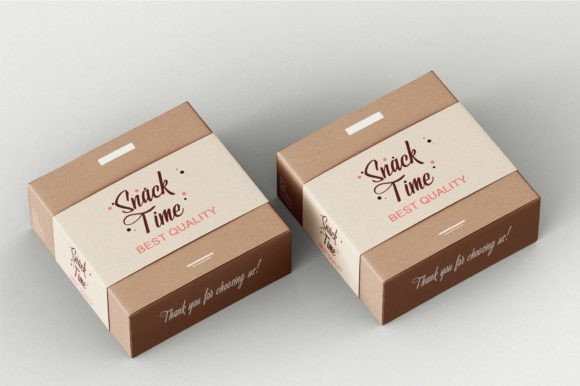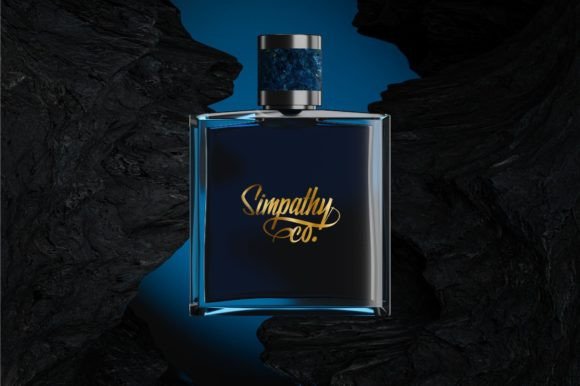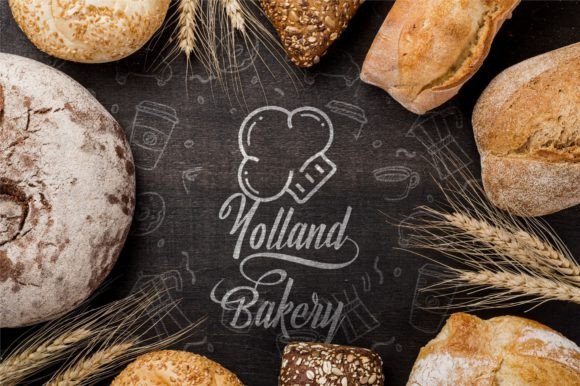
Introduction to Pumpkinlab Font
Pumpkinlab is a casual handwritten font carefully created to fit your everyday craft projects.
It is the perfect match for invitation cards, T-shirts, letterheads, signatures, labels, news titles, posters, badges, and many more Add it to each of your creative projects, and notice how it makes them come alive.
Key Features of Pumpkinlab Font